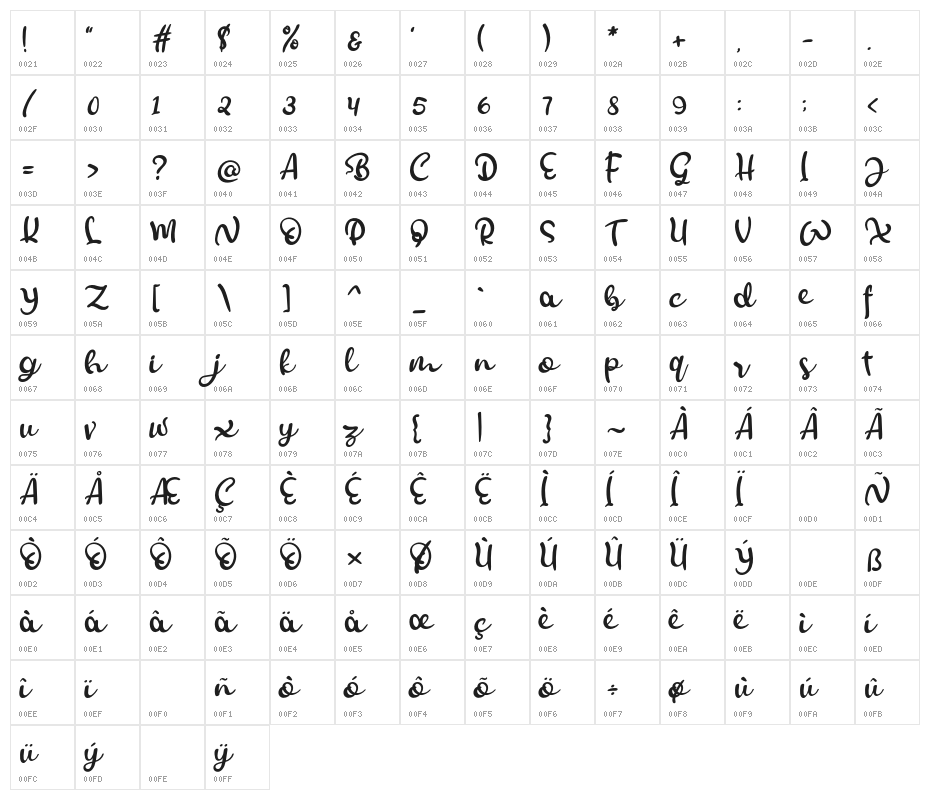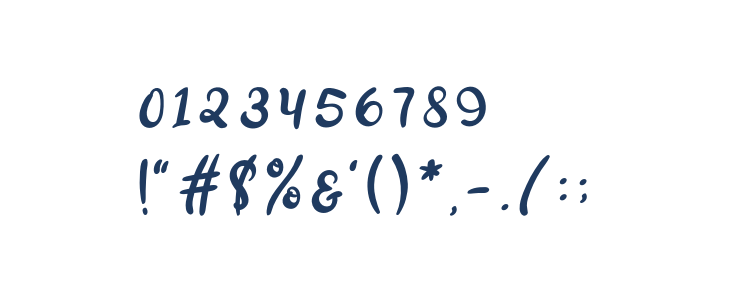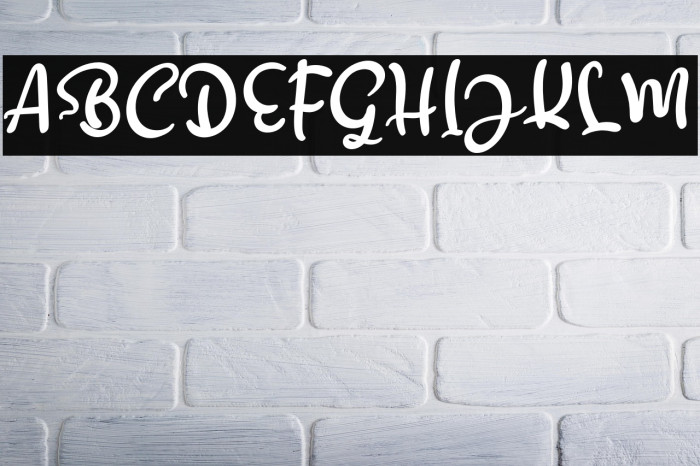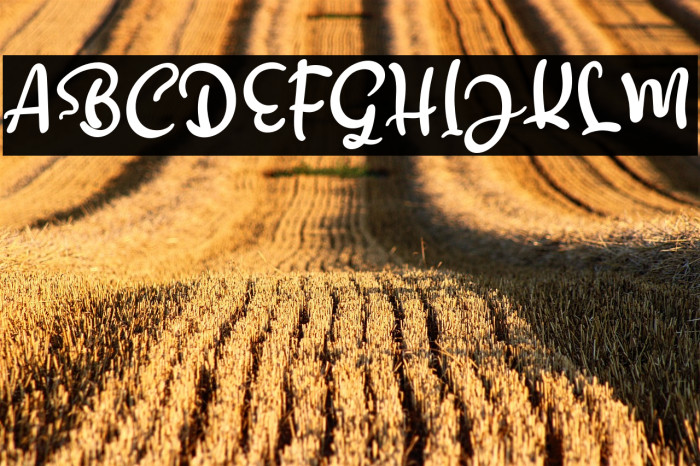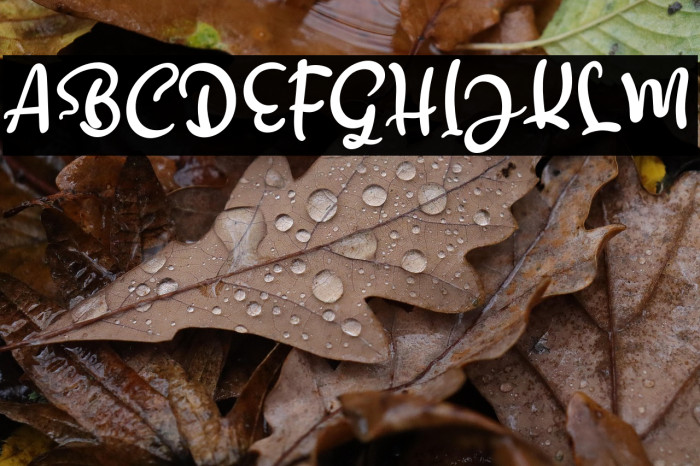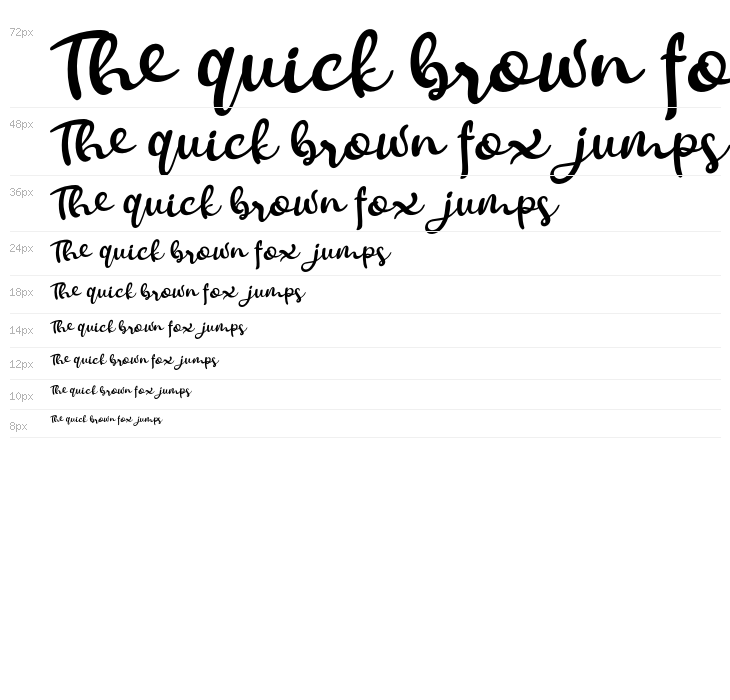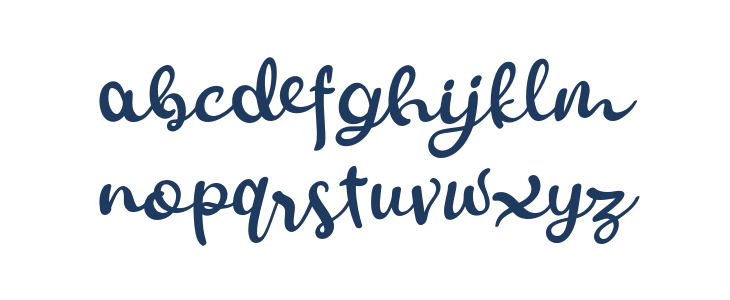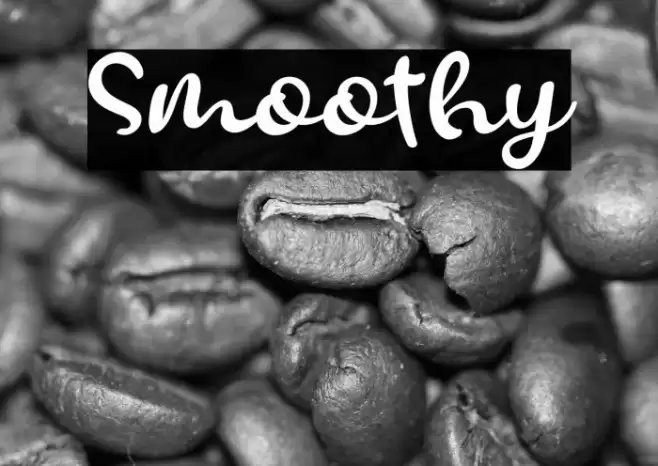
Smoothy Font
Smoothy Description
This font features a playful and flowing script style, characterized by its smooth, rounded edges and a handwritten appearance. The uppercase letters are bold and slightly whimsical, while the lowercase letters maintain a consistent fluidity, enhancing the font's overall charm. The numerals are clear and easy to read, matching the playful style of the letters. Special characters are designed with the same attention to detail, ensuring a cohesive look across all glyphs. This font's unique style makes it suitable for creative projects that require a personal touch.